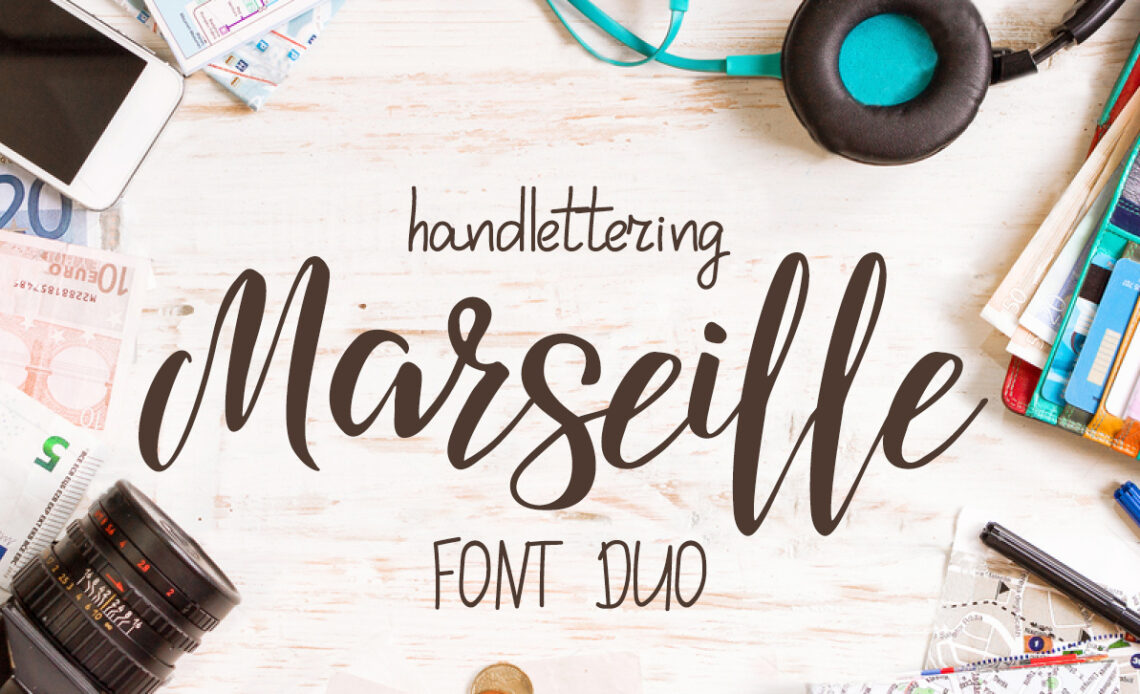
Immerse yourself in the world of Marseille Font Duo, a captivating font duo that brings your creative visions to life. With its graceful script and striking brushed fonts, Marseille transforms ordinary text into breathtaking typographic art.
Marseille Hand Lettered Font emanates charm and elegance, reminiscent of a skilled calligrapher's hand. Its flowing strokes and delicate curves lend an air of sophistication to any design. Perfect for wedding invitations, branding, and heartfelt messages, Marseille Hand Lettered Font adds a touch of timeless beauty.
Marseille Brushed Font exudes a bold and confident aura, leaving a lasting impression. Its textured strokes, reminiscent of a masterful painter's brush, bring depth and dimension to your designs. Ideal for posters, social media graphics, and eye-catching headlines, Marseille Brushed Font commands attention and leaves a lasting impact.
Together, Marseille Hand Lettered and Brushed Fonts form a harmonious symphony of creativity, providing endless possibilities for self-expression. Combine them to create captivating logos, stunning social media posts, and enchanting invitations. The decorative options within Marseille Font Duo empower you to personalize your designs, ensuring that your creations stand out from the mundane.
Embark on a creative journey with Marseille Font Duo, where imagination takes center stage. Let the flowing script and bold strokes captivate your audience, leaving them in awe of your typographic artistry. Seize the opportunity to elevate your designs and create truly remarkable impressions.